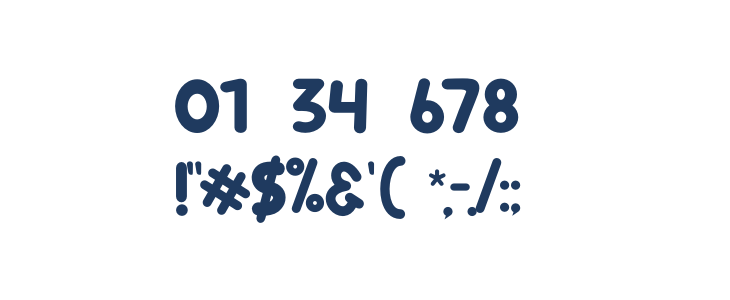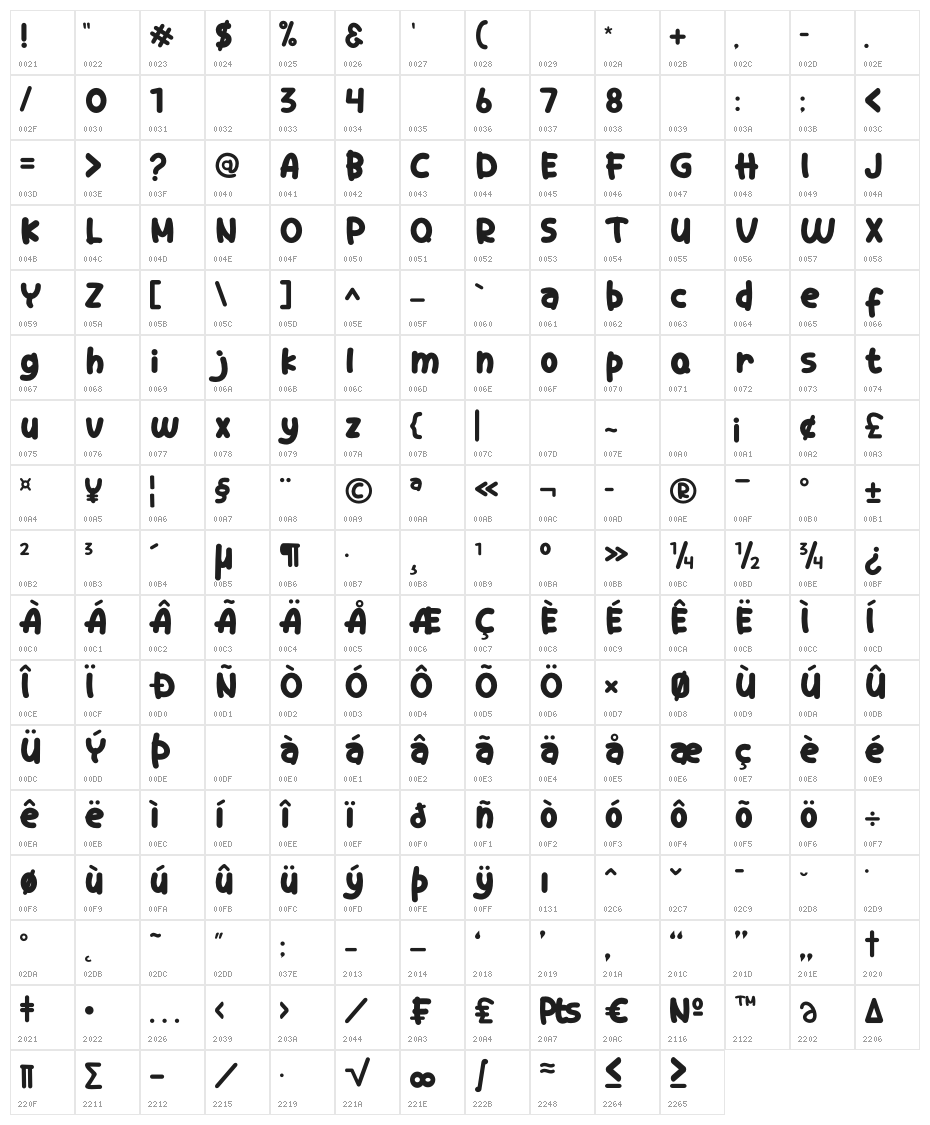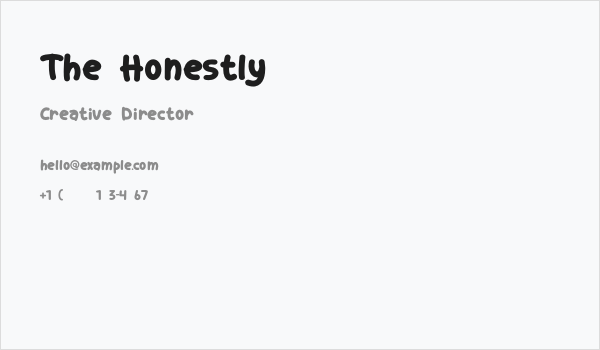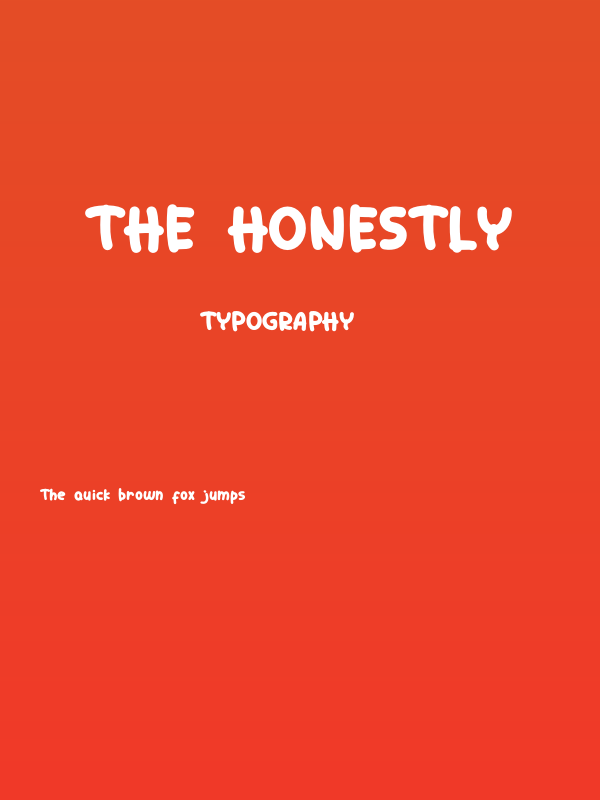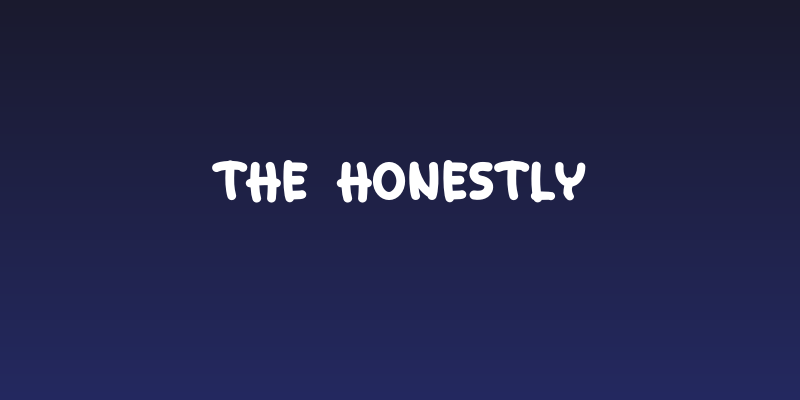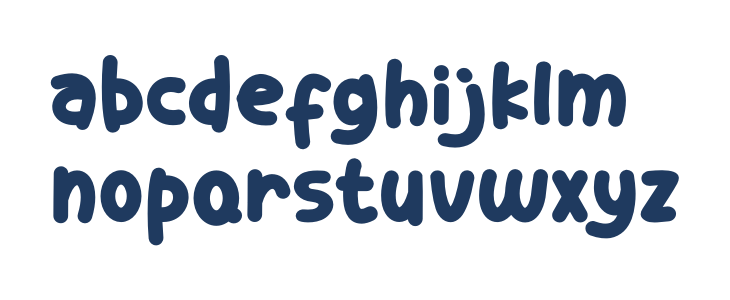
The Honestly Font
This playful and bold font features rounded, bubbly characters that convey a sense of fun and approachability. The letters are thick and consistent, with a slightly irregular shape that adds a whimsical touch. The font maintains a uniform stroke width, giving it a cohesive appearance. It includes both uppercase and lowercase letters, numerals, and a variety of special characters. The overall style is casual and friendly, making it suitable for projects that aim to be inviting and engaging.
Overall StylePlayful
Proposed ProjectsIdeal for children's books, playful branding, casual invitations, and creative posters.